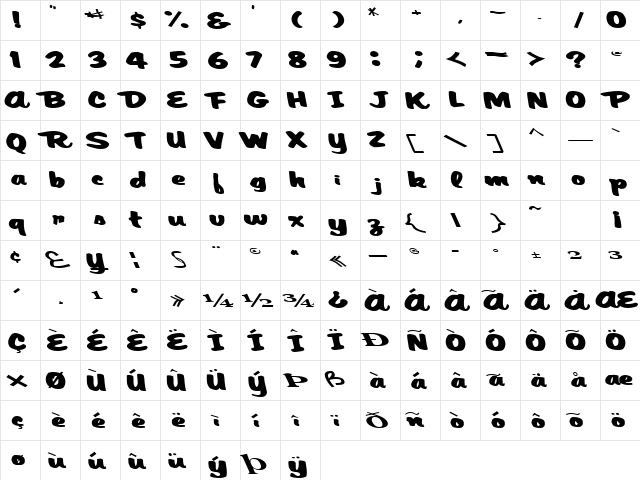
ArtisTicMyth Regular
Design Context for ArtisTicMyth Typeface
ArtisTicMyth is a composed and adaptable typeface that performs quietly and consistently across a wide range of design contexts.
Pro Tip: Use ArtisTicMyth in both headline and body roles to test its range before committing to a single application.